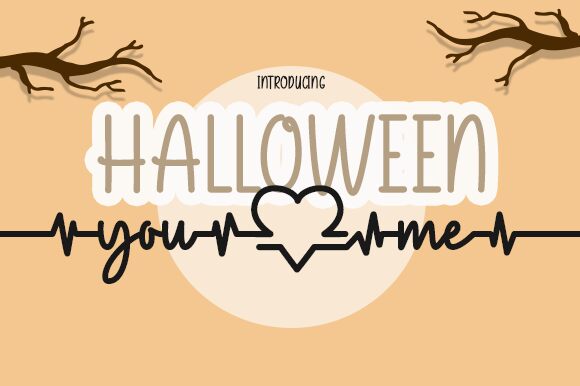
Halloween You And Me, a whimsical handwritten font by Danar Nugroho, adds a touch of playfulness to any project. With its semi-light weight, this font is perfect for creating spooky invitations and party decorations for Halloween celebrations.
Its quirky and unique style also makes it suitable for designing posters and flyers for children's events or themed parties. Whether you're working on a digital design or print project, Halloween You And Me will bring a fun and festive atmosphere to your creations.